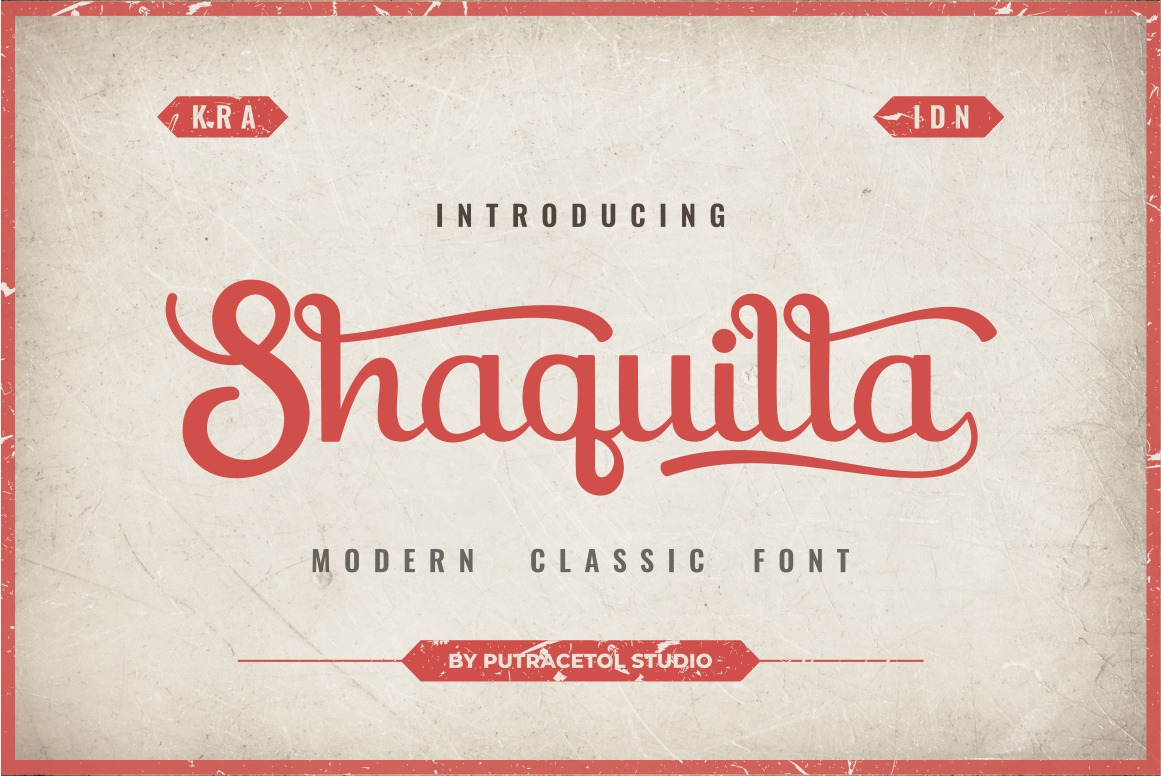
Shaquilla Font
Shaquilla
Shaquilla is a Modern Classic Style font. It contains a full set of lower & uppercase letters, punctuation, numerals, and multilingual support. I hope this can make inspire you from your work.Ideal for logos, handwritten quotes, product packaging, tittle header, poster, merchandise, social media, labels, branding & greeting cards.
- Uppercase (With Alternate)
- Lowercase (With Alternate)
- End Letter Swash
- Number, Punctuation & Symbols
- Multilanguage